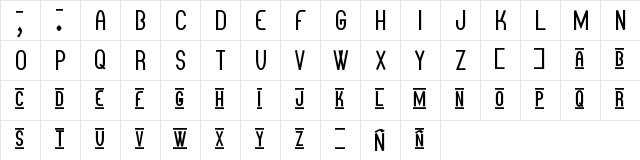
Otra Mas stf Regular
Design Context for Otra Mas stf Typeface
Otra Mas stf offers clean, dependable letterforms without strong stylistic allegiance, making it a practical choice for designers who need flexibility.
Pro Tip: Use Otra Mas stf in both headline and body roles to test its range before committing to a single application.